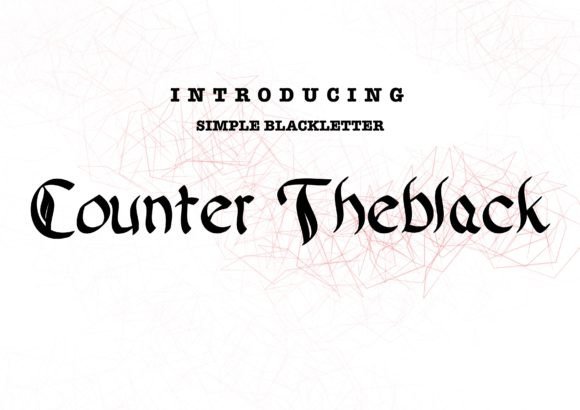
Behold the Counter Theblack Font, a masterpiece crafted by Manbehindart, a font foundry renowned for its impeccable artistry. This blackletter font, an embodiment of elegance and versatility, boasts a character set of over 218 letters, encompassing Latin characters, numerals, and symbols, providing boundless opportunities for creative expression.
Immerse yourself in the Counter Theblack Font's captivating allure, a font meticulously designed to elevate your designs, whether print or digital. Its intricate details, flowing curves, and sharp edges create a visual symphony that commands attention and leaves a lasting impression.
Unleash your creativity with Counter Theblack Font, a font that seamlessly adapts to a multitude of applications. Craft eye-catching logos that demand attention, design stunning posters that captivate audiences, or create mesmerizing social media graphics that ignite engagement. The possibilities are boundless, limited only by your imagination.
Take your designs to new heights with Counter Theblack Font, a font engineered with both form and function in mind. Its clean lines and crisp edges ensure readability, even at smaller sizes, making it an ideal choice for mobile web apps and user interfaces. Let your designs shine across all devices, delivering an exceptional user experience.
Embrace the Counter Theblack Font, a font that resonates with sophistication and elegance. Its timeless appeal adds a touch of class to any project, whether it's a wedding invitation, a luxury brand logo, or a high-end fashion magazine. Elevate your designs to new levels of refinement and make a lasting impression on your audience.